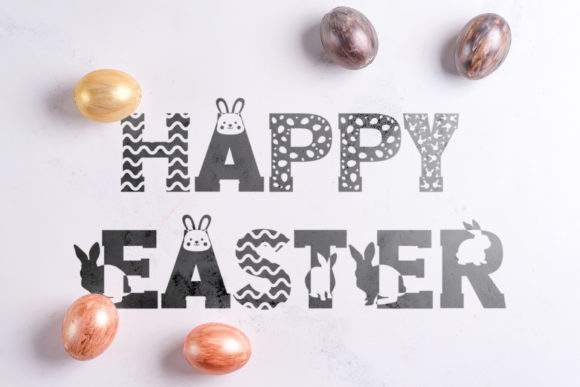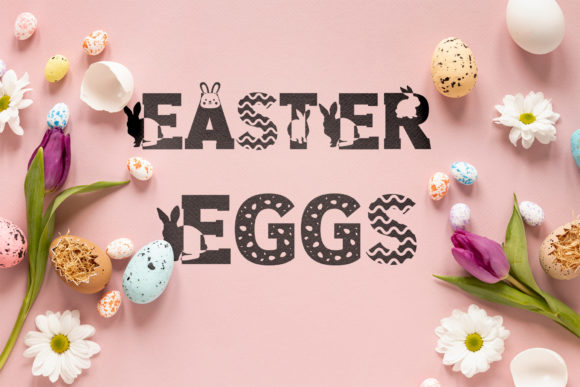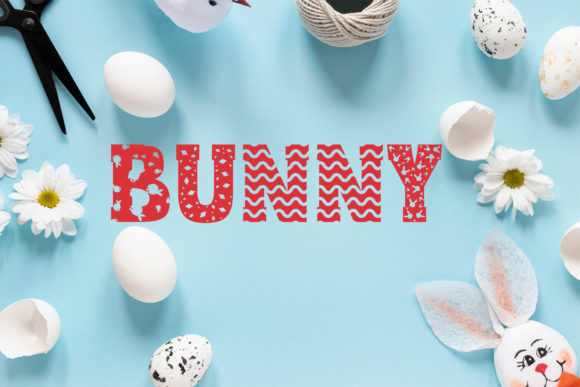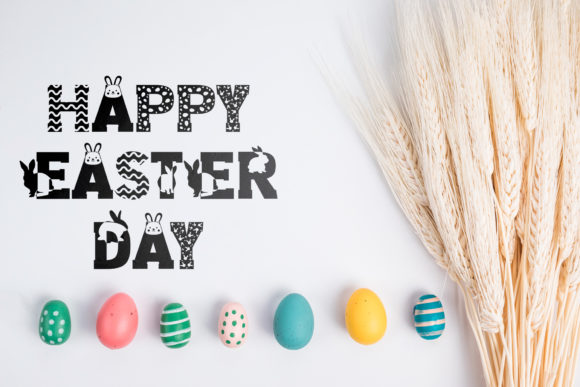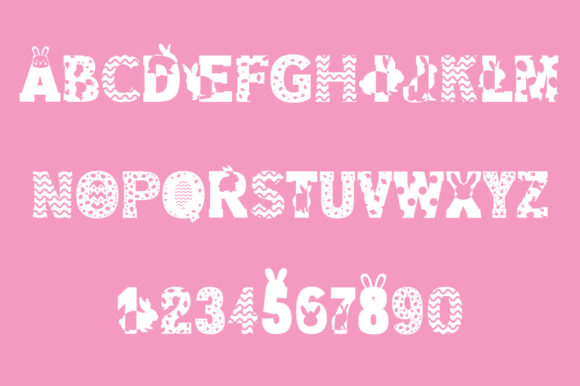
Easter Font: Add a Joyful Touch to Your Designs with this Adorable Quirky Decorative Font
Are you looking for a font that can add a playful and joyful touch to your designs? Look no further than the Easter Font! This adorable quirky decorative font is perfect for designers and crafters who want to create beautiful and eye-catching artwork for Easter and beyond.
What is Easter Font?
Easter Font is a unique and creative font that is designed to bring a smile to your face. Its playful style is reminiscent of Easter eggs, bunnies, and other festive elements that are associated with the holiday. The font is perfect for a variety of design projects, including stationary art, social media posts, and more.
Features of Easter Font
- Adorable and Quirky Design: Easter Font features an adorable and quirky design that is sure to add a joyful touch to your designs.
- Playful Style: The font has a playful style that is perfect for Easter and other spring-themed designs.
- Decorative Elements: Easter Font features decorative elements that are reminiscent of Easter eggs, bunnies, and other festive elements.
Uses of Easter Font
Easter Font is a versatile font that can be used for a variety of design projects, including:
- Stationary Art: Create beautiful and eye-catching stationary art, such as greeting cards, invitations, and more.
- Social Media Posts: Use Easter Font to create eye-catching social media posts that will grab the attention of your followers.
- Digital Art: Create stunning digital art, such as illustrations, graphics, and more.
- Crafting Projects: Use Easter Font to add a personal touch to your crafting projects, such as scrapbooking, sewing, and more.
Why Choose Easter Font?
There are many reasons why you should choose Easter Font for your design projects. Here are just a few:
- Unique Design: Easter Font features a unique and creative design that will set your designs apart from the rest.
- Versatile: Easter Font is a versatile font that can be used for a variety of design projects.
Tips for Using Easter Font
Here are a few tips for using Easter Font in your design projects:
- Use it for Easter-themed Designs: Easter Font is perfect for Easter-themed designs, such as Easter eggs, bunnies, and more.
- Experiment with Different Colors: Experiment with different colors to find the perfect combination for your design.
- Pair it with Other Fonts: Pair Easter Font with other fonts to create a unique and interesting design.
- Use it for Kids’ Projects: Easter Font is perfect for kids’ projects, such as coloring pages, activity sheets, and more.
Easter Font is a unique and creative font that is perfect for designers and crafters who want to add a playful and joyful touch to their designs. With its adorable and quirky design, playful style, and decorative elements, Easter Font is sure to become a favorite in your design arsenal. So why wait? Download Easter Font today and start creating beautiful and eye-catching designs for Easter and beyond!